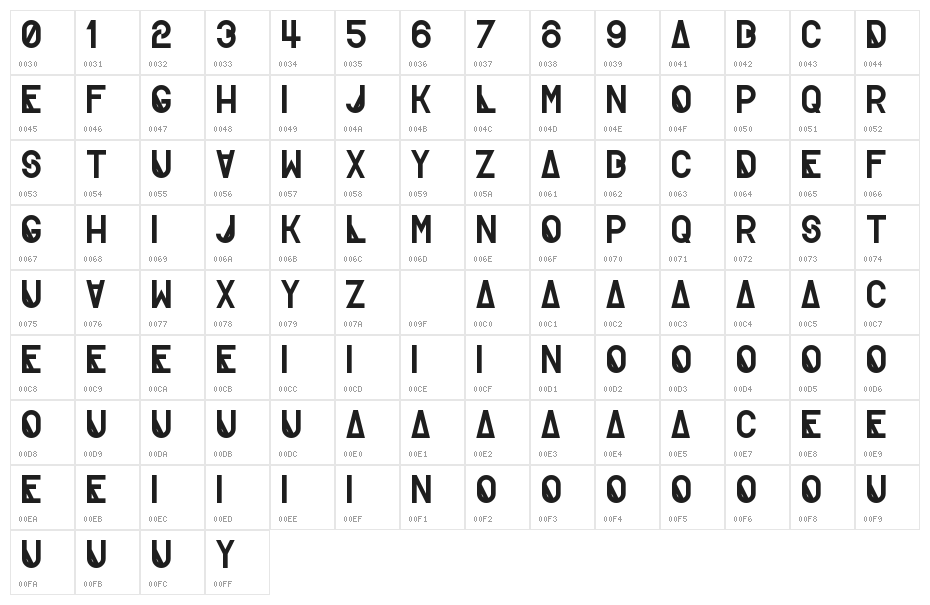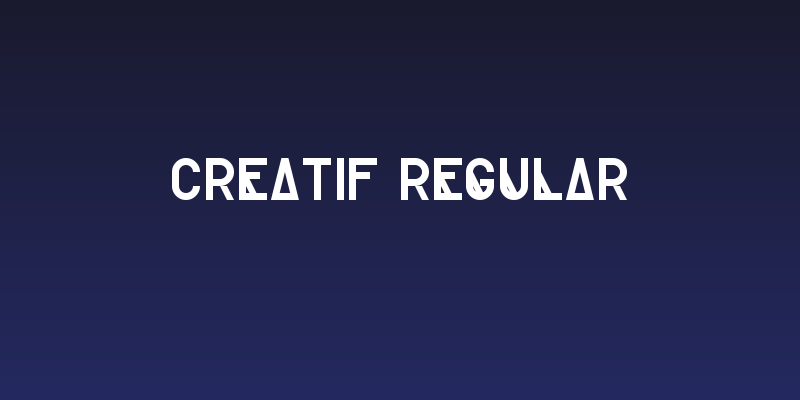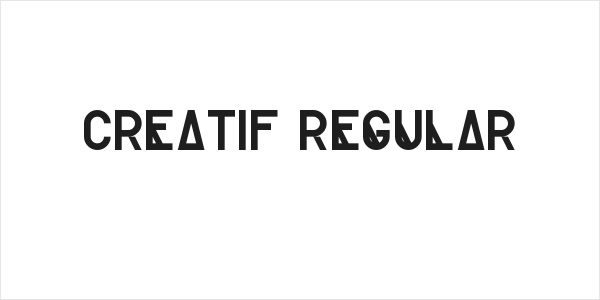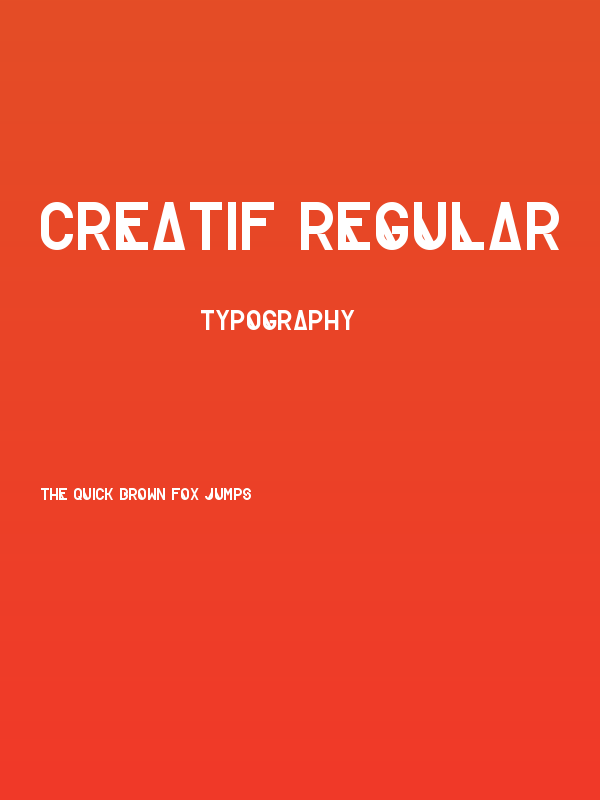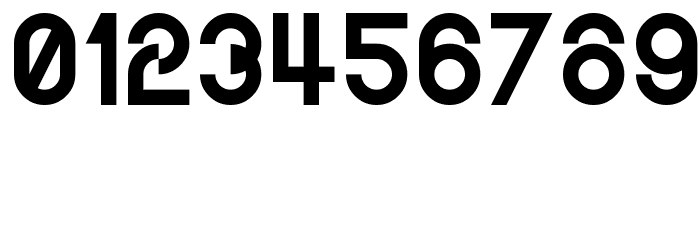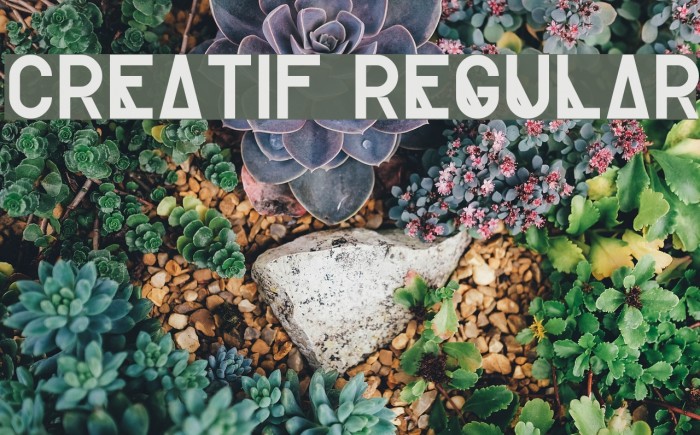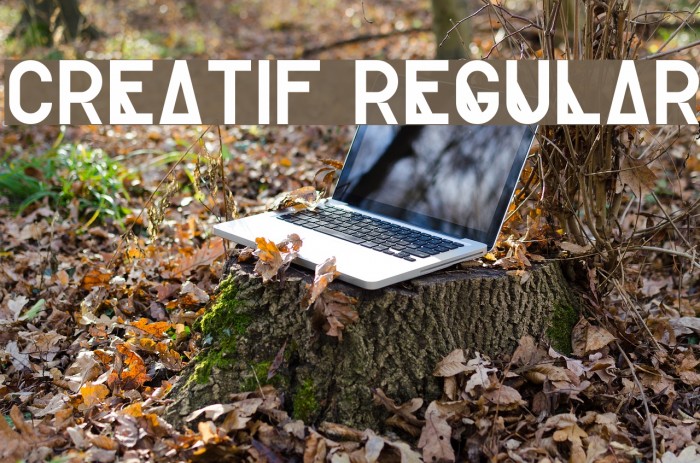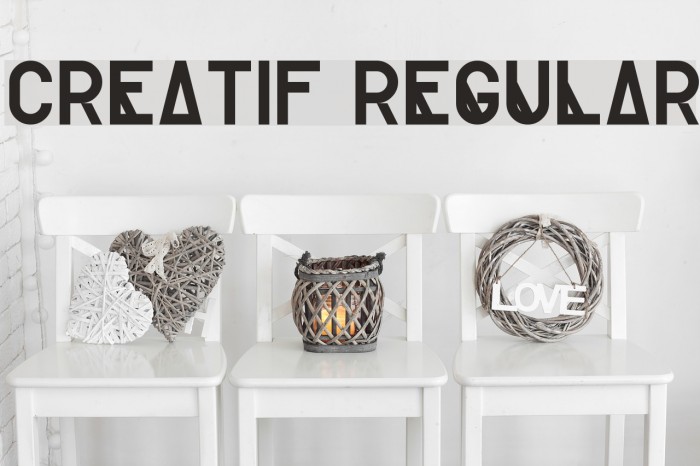
Creatif Regular Font
Creatif Regular Description
This font features a bold and geometric design with a distinctive modern flair. The characters are constructed with sharp angles and clean lines, creating a sense of precision and clarity. The uppercase letters are particularly striking, with unique cutouts and shapes that add a dynamic and futuristic feel. The numbers and special characters maintain this aesthetic, ensuring consistency across all glyphs. This font's strong visual impact makes it ideal for attention-grabbing designs.